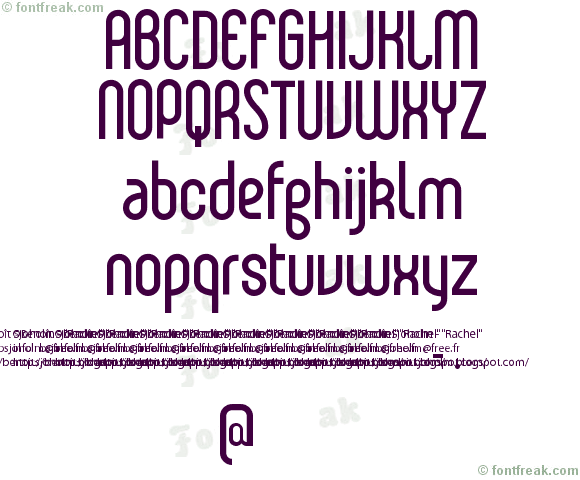
Rachel
About Rachel
The Rachel font, designed by Benoit Sjoholm in 2011, is a unique sans-serif typeface that captures attention with its modern aesthetic and clean lines. As a freeware font, it is accessible for anyone looking to enhance their design projects without worrying about licensing fees. The Rachel font features a balanced stroke weight, providing an even visual appeal that ensures readability across various applications. With its understated contrast and well-considered spacing, this font maintains clarity while adding a touch of sophistication, making it suitable for both digital and print media.
The Rachel font excels in several specific use cases, making it a versatile choice for designers and content creators alike. Its contemporary style is perfect for branding materials, allowing businesses to establish a modern identity. Additionally, it works beautifully for wedding invitations, where elegance and legibility are paramount. Restaurant menus can also benefit from the Rachel font, as it adds an inviting touch to the overall dining experience. Moreover, its clean lines make it ideal for promotional materials, such as flyers and brochures, where quick comprehension is essential.
What truly sets the Rachel font apart is its blend of simplicity and elegance. By opting for this typeface, designers can convey a sense of modernity while maintaining a timeless quality, making it a standout choice in any project. For those interested, the Rachel font free download is readily available, allowing for immediate use in your next design endeavor.